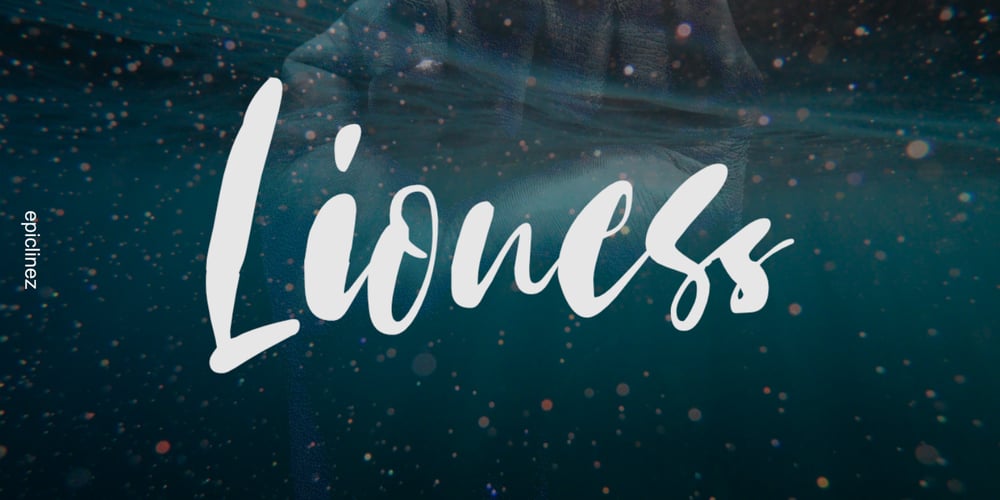
Lioness
Lioness font
Lioness Font Family was designed by Aldy Sidik and published by Epiclinez. Lioness contains 1 styles and family package options. Lioness is a stunning script font with a strong character. It is suitable for logo, branding, packaging, apparel, wedding invitations, social media, and more.